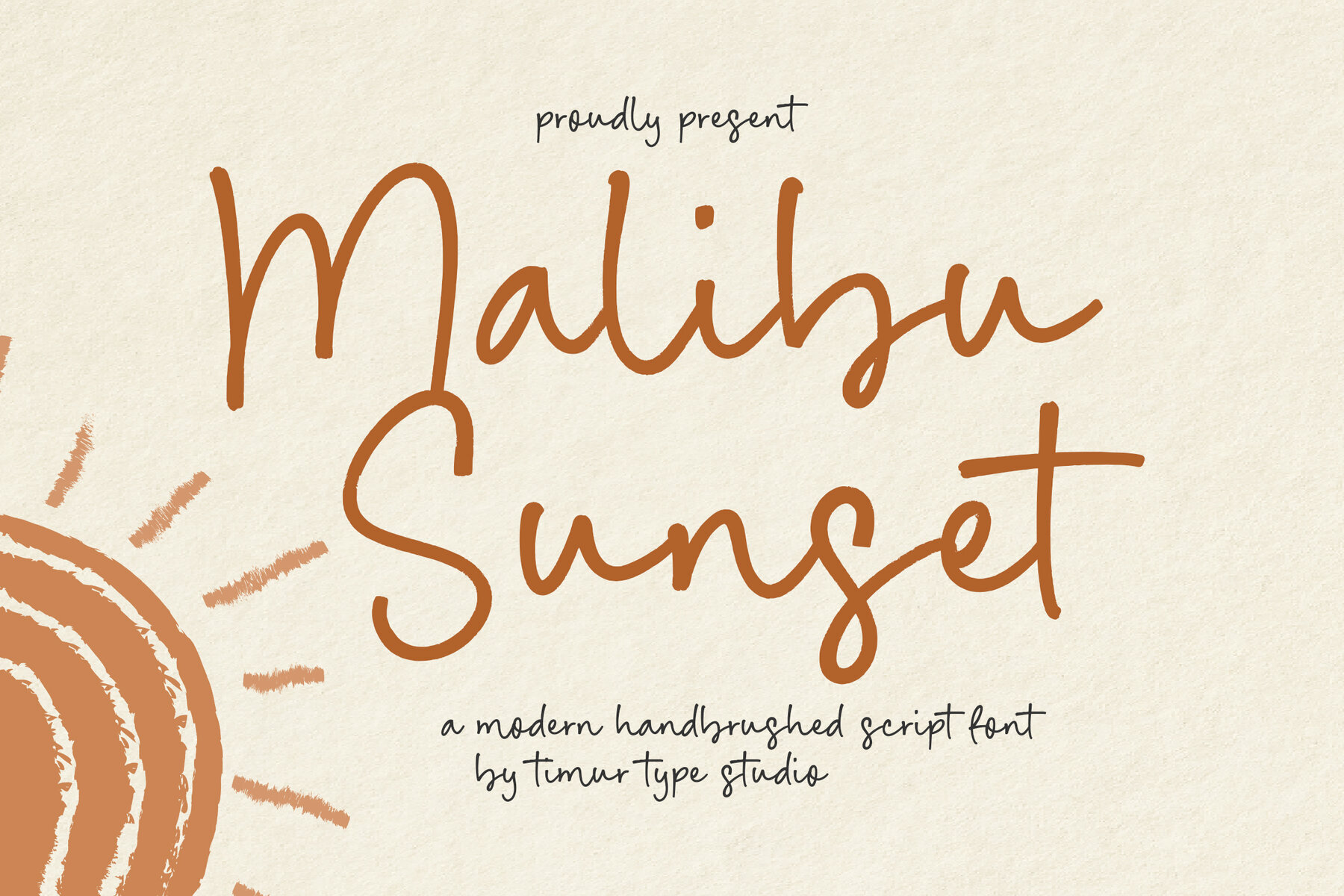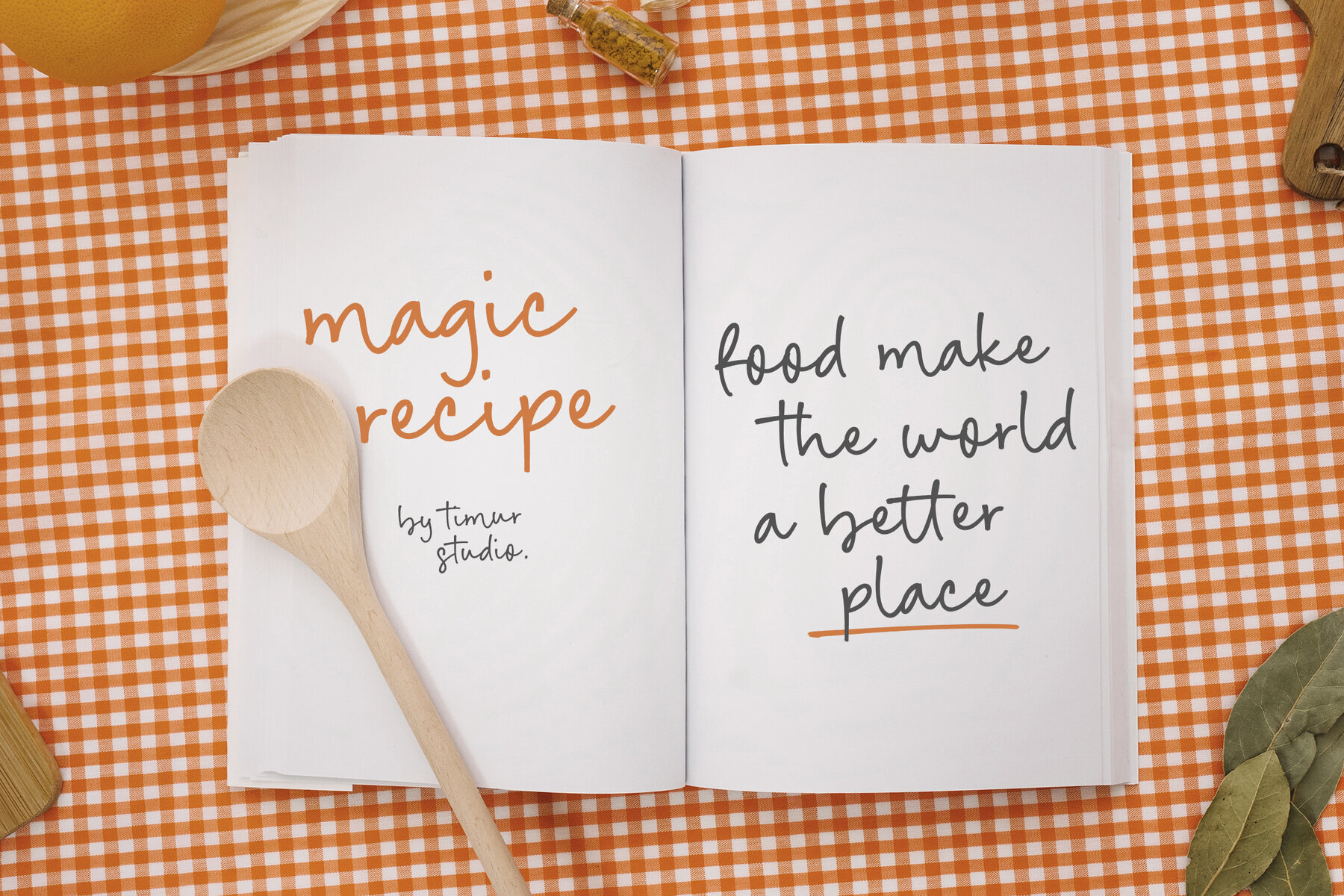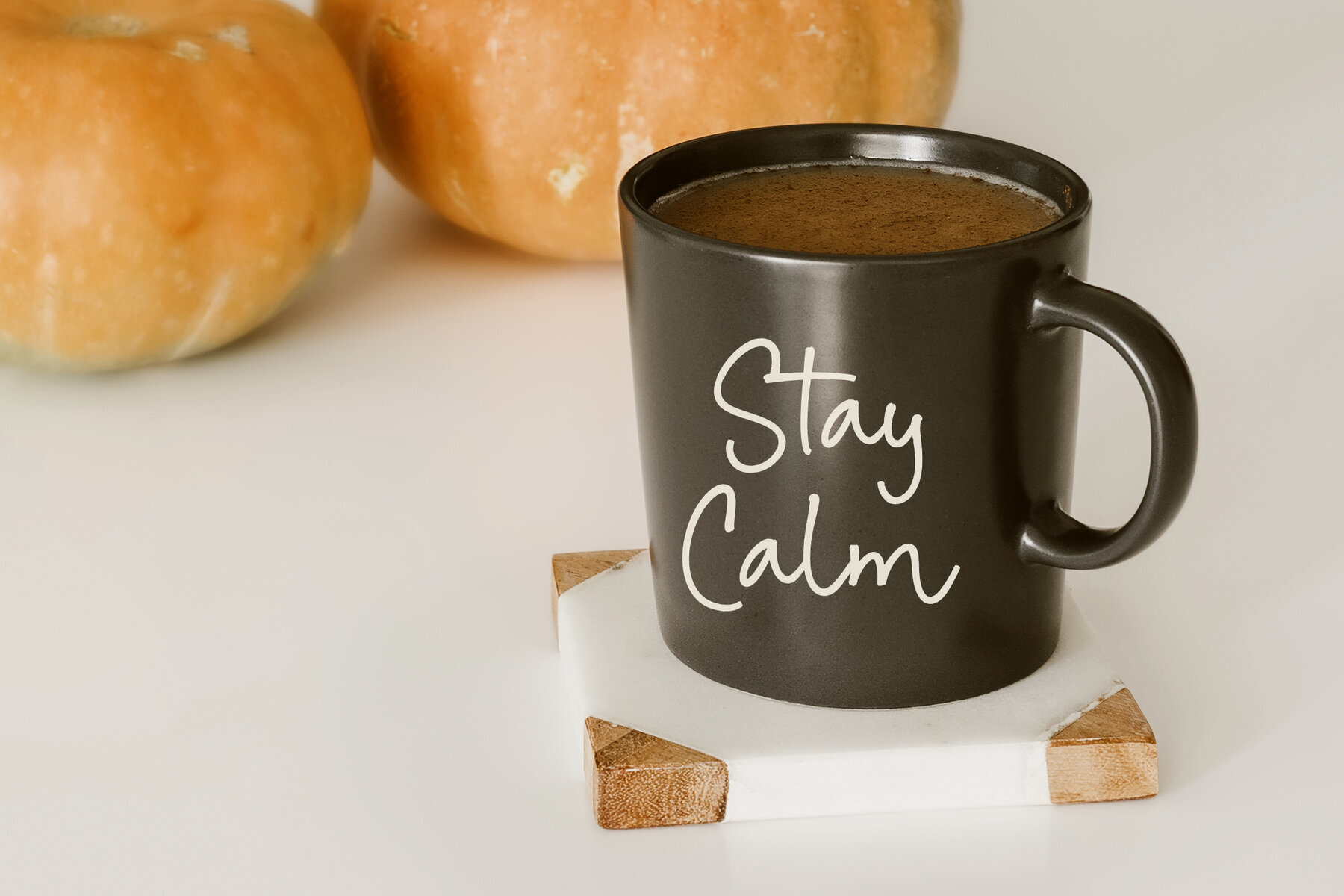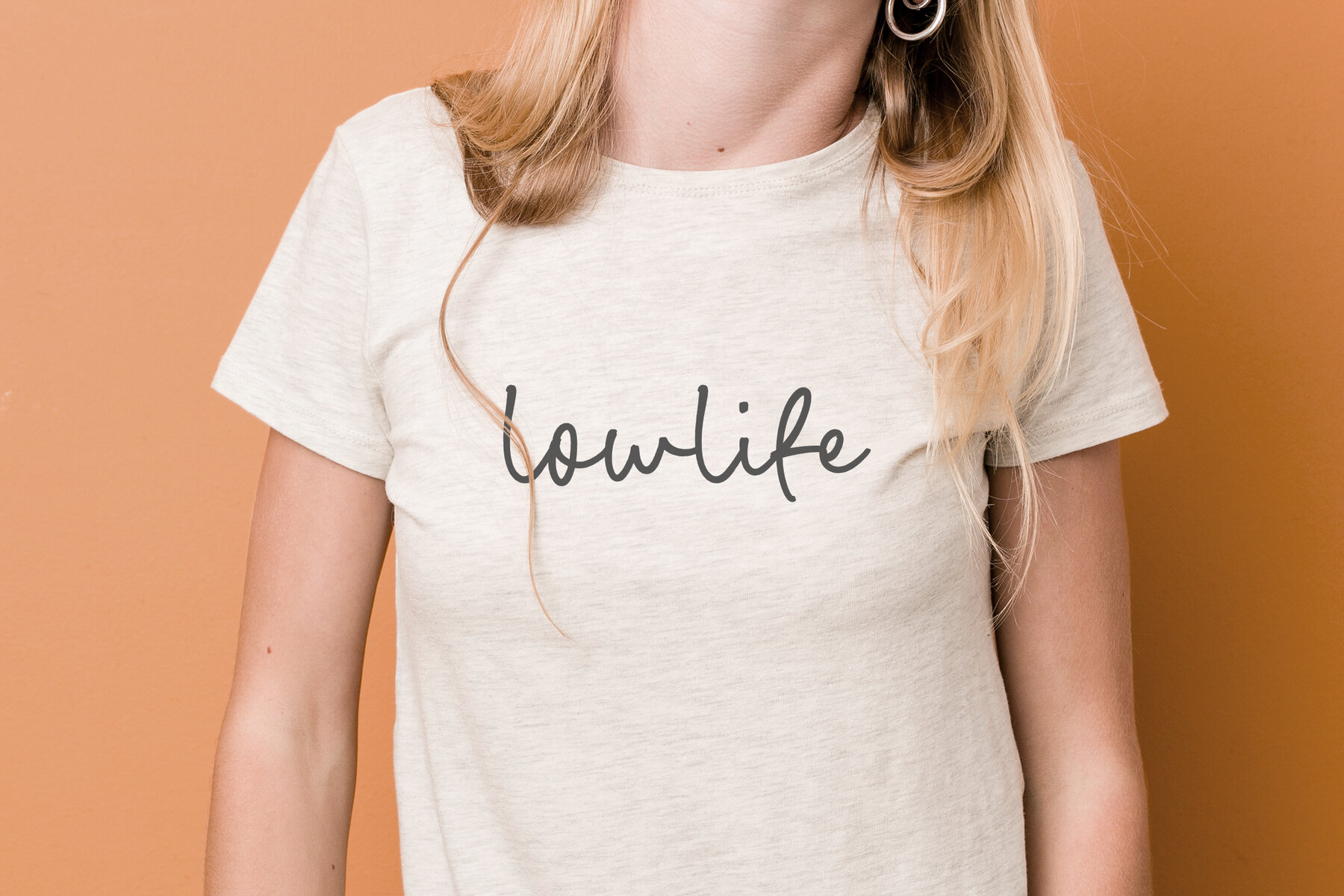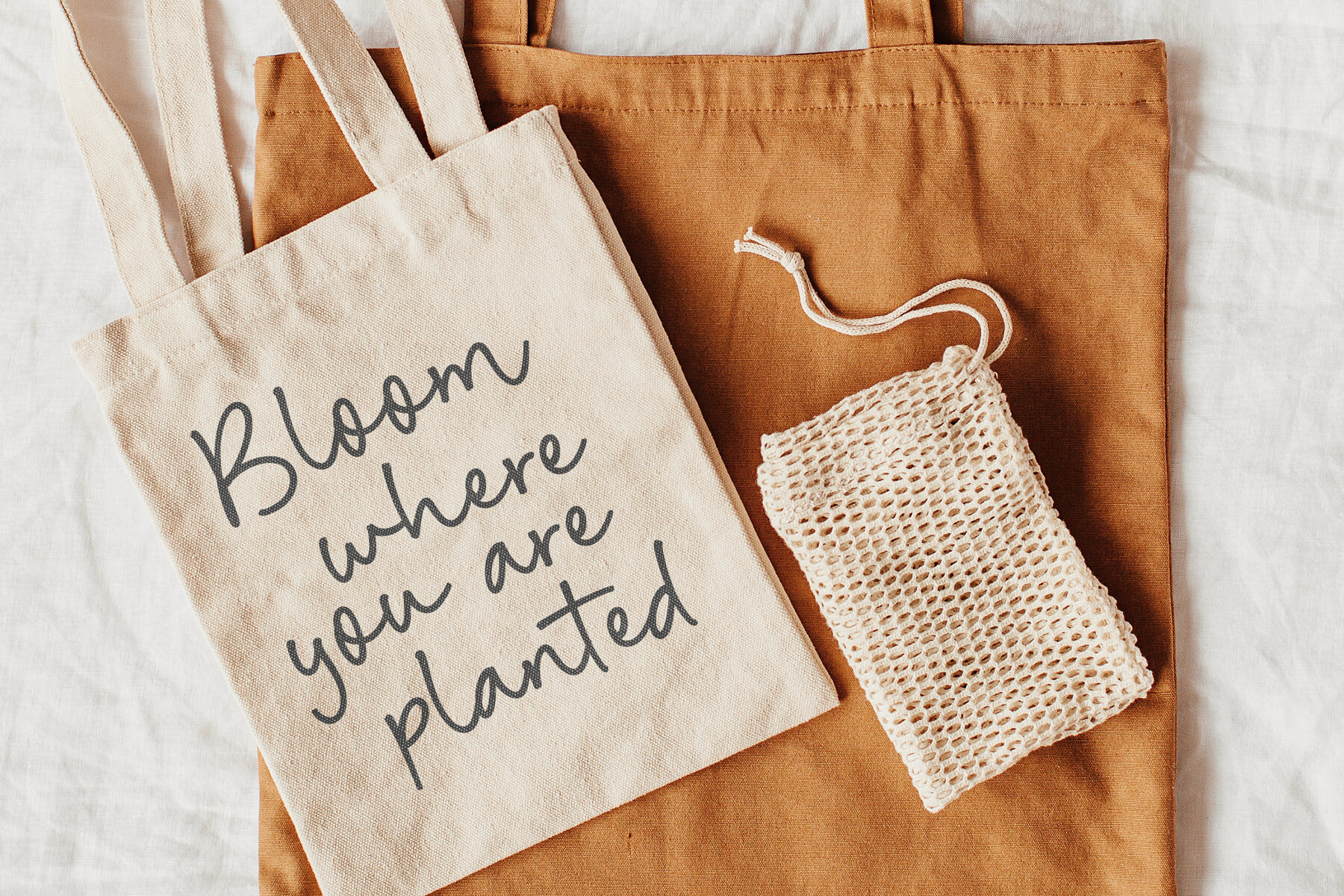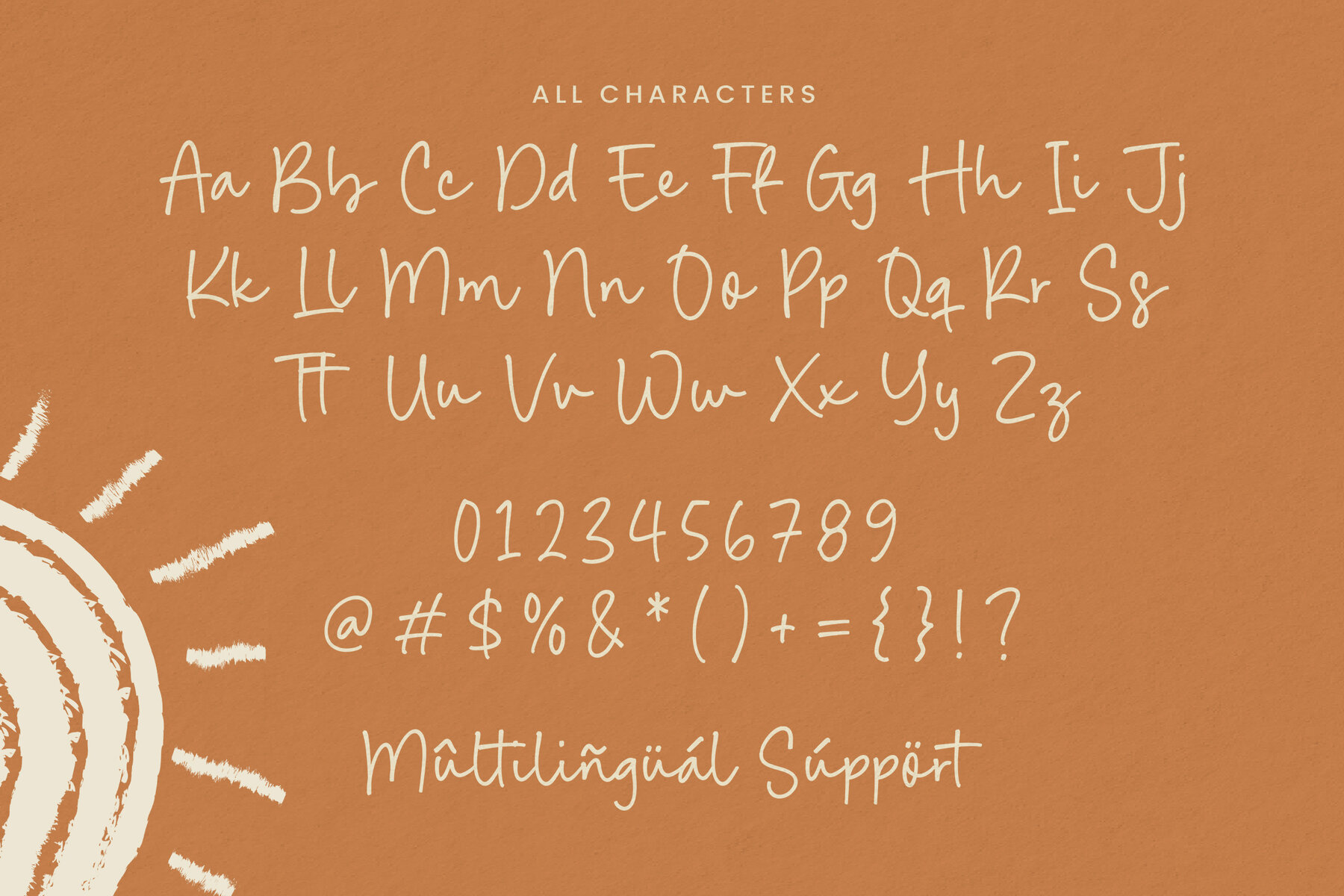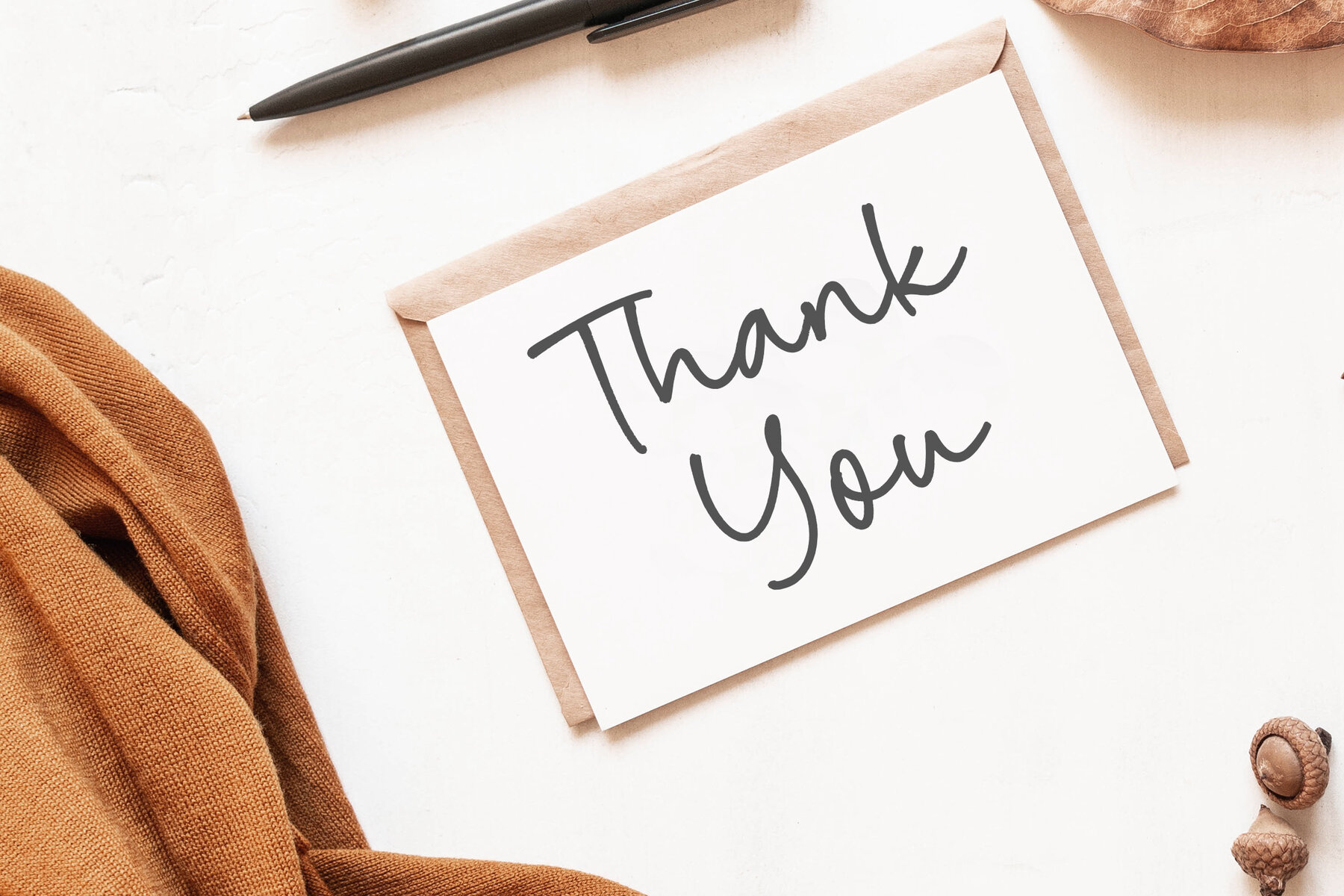
Malibu Sunset Font
Malibu Sunset
The Malibu Sunset font brings a modern handbrushed aesthetic that encapsulates a serene, beach-inspired aura. With its fluid, organic strokes, this font enhances designs with a hint of elegance and effortless charm. Whether you're working on branding, logos, invitations, or other creative ventures, Malibu Sunset infuses a handcrafted touch that resonates with the relaxed vibe of coastal living. Its adaptability extends to various languages, making it a versatile choice for global projects.Malibu Sunset: Handbrushed Script with Coastal Charm